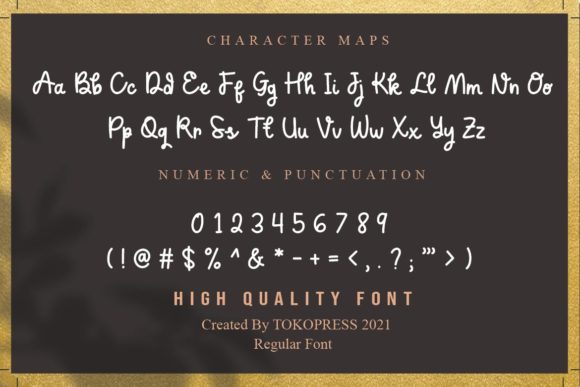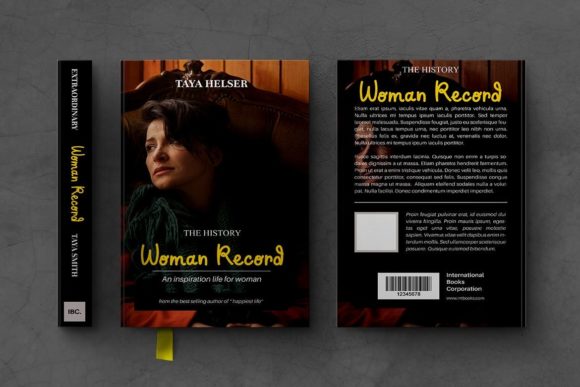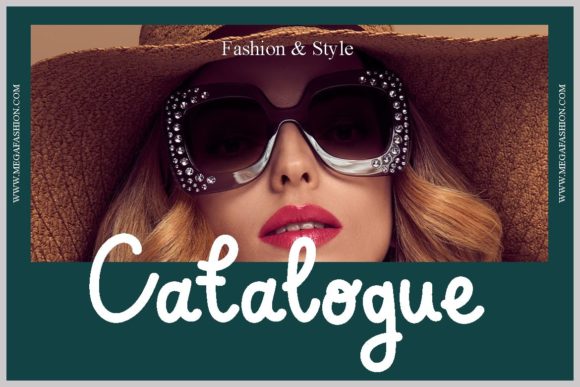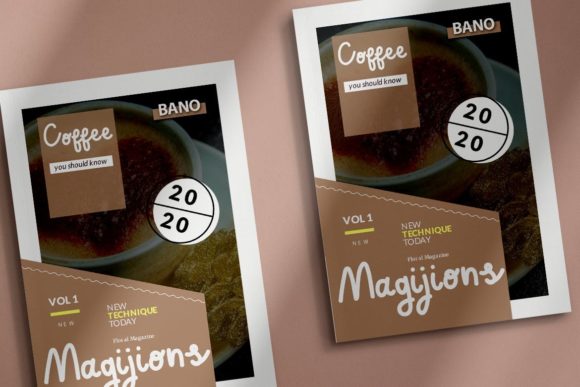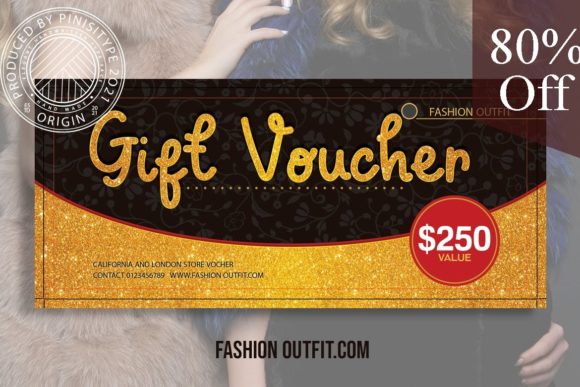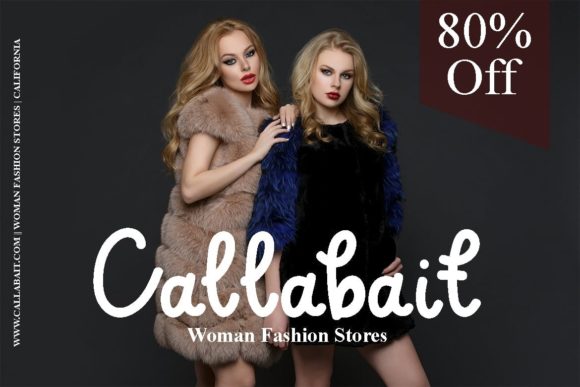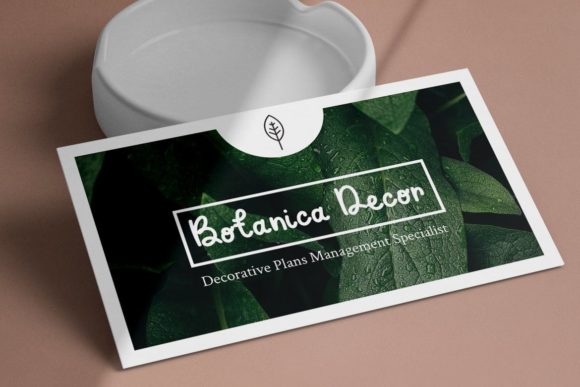
Sound of Nature Font
About Sound of Nature Font
Sound of Nature is a whimsical script font with a relaxed theme, featuring a lovely style. No matter the topic, this font will be an incredible asset to your fonts’ library, as it has the potential to elevate any creation.